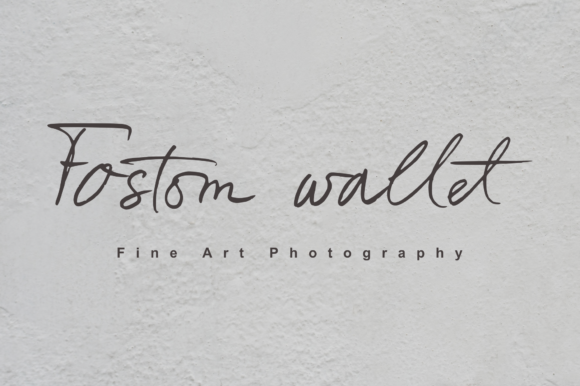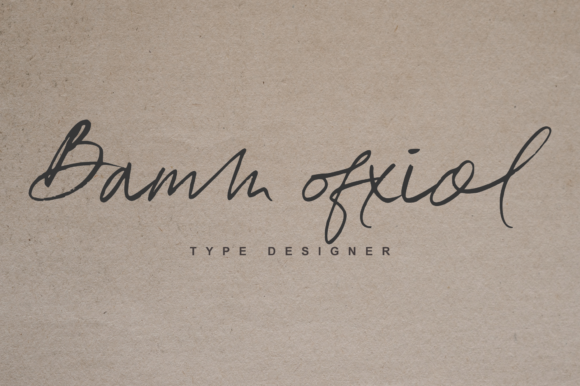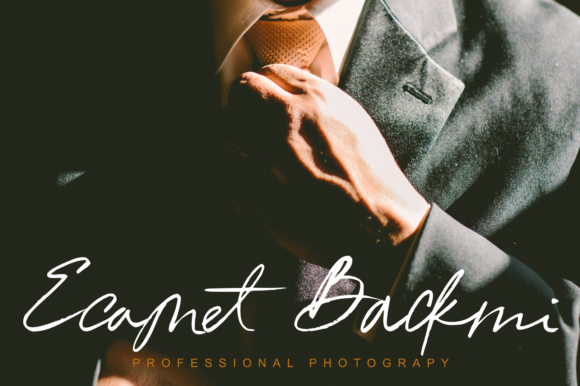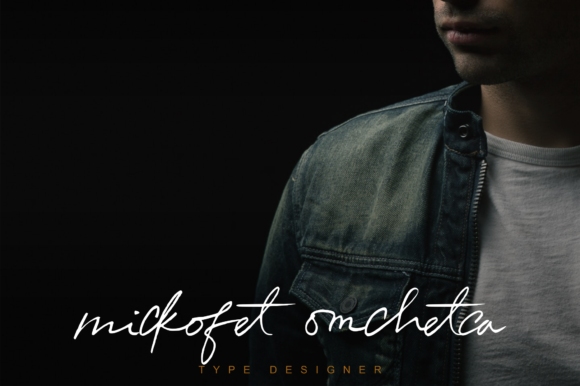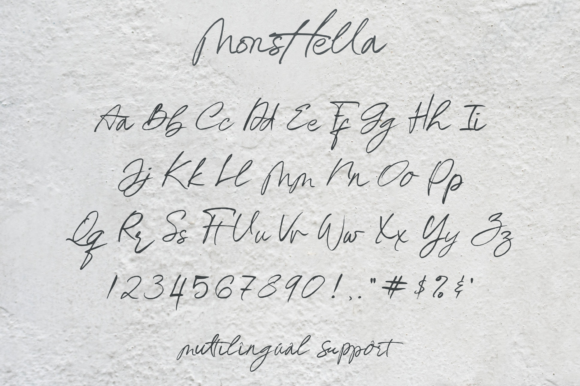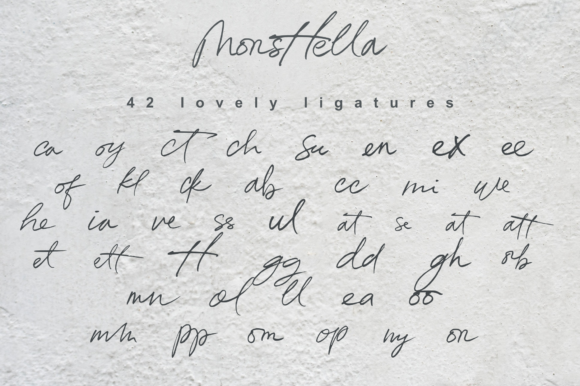
Introduction to Monsttella Font
Have you ever been working on a creative project, pouring your heart and soul into it, and then suddenly, the perfect font pops up and takes your design to the next level? That’s exactly what happened to many designers who stumbled upon the Monsttella Font. This beautiful, handwritten font is a game-changer for any design project, from birthday invitations to wedding cards.
With its relaxed and incredibly versatile nature, the Monsttella Font is a must-have design resource for any creative project. Its PUA encoding allows for easy access to all the glyphs and swashes, making it a high-quality addition to any design tool kit. Whether you’re looking for a free download or a premium font, Monsttella Font is sure to impress with its gorgeous glyphs and stunning alternates.
As a designer, you know how important it is to have the right tools to bring your vision to life. With Monsttella Font, you’ll have the perfect partner to help you create unique and authentic designs that stand out from the crowd. Plus, its transparent background makes it easy to use on any background, giving you complete creative freedom.
Key Features of Monsttella Font
- High-quality design resource suitable for various creative projects, including logos, graphics, and digital art.
- Features a transparent background, making it ideal for use on various backgrounds and surfaces, from dark to light.
- Monsttella Font is a unique and eye-catching design element that can add a touch of personality to any creative project.
- High-resolution design, suitable for use in both print and digital applications, including business cards, posters, and website graphics.
Honest Review: Monsttella Font
I recently came across the Monsttella Font, and I must say it’s a great addition to any design resource collection. This unique, high-quality font is perfect for creative projects that require a touch of personality.
The Monsttella Font is a free download, which is a definite bonus. With its transparent background and clean design, it’s easy to incorporate into any design without overwhelming the overall aesthetic.
- Unique design that adds personality to creative projects
- High-quality font that’s perfect for professional designs
- Transparent background for easy incorporation into designs
- May not be suitable for very formal or conservative designs
- Limited character set, which may require additional font downloads for certain languages
Overall, the Monsttella Font is a great choice for designers looking for a unique, high-quality font to add some personality to their creative projects. While it may not be suitable for every design, it’s definitely worth considering for the right project.
To get the most out of the Monsttella Font, experiment with different font sizes, colors, and styles to create a unique design. You can also use the font in combination with other design elements, such as graphics and images, to create a visually appealing design.
The Monsttella Font is ideal for creative projects, such as graphic design, digital art, and typography. You can use it to create logos, icons, and other visual elements that require a high-quality, unique font.